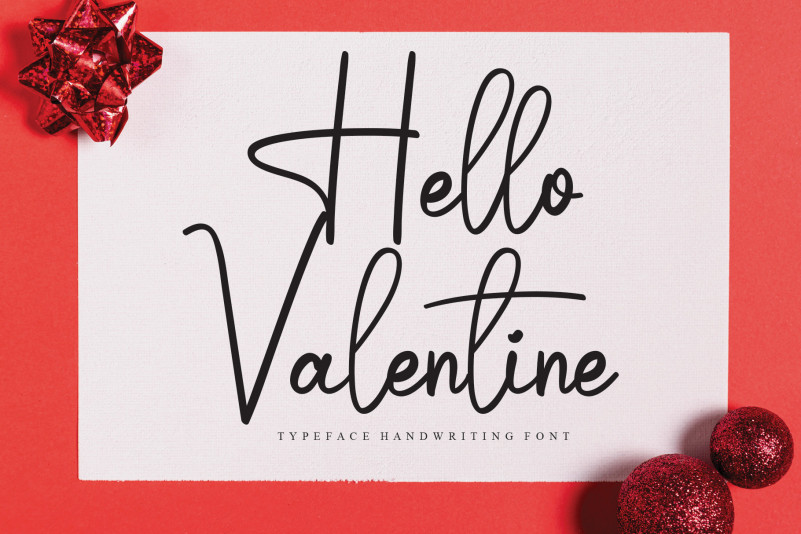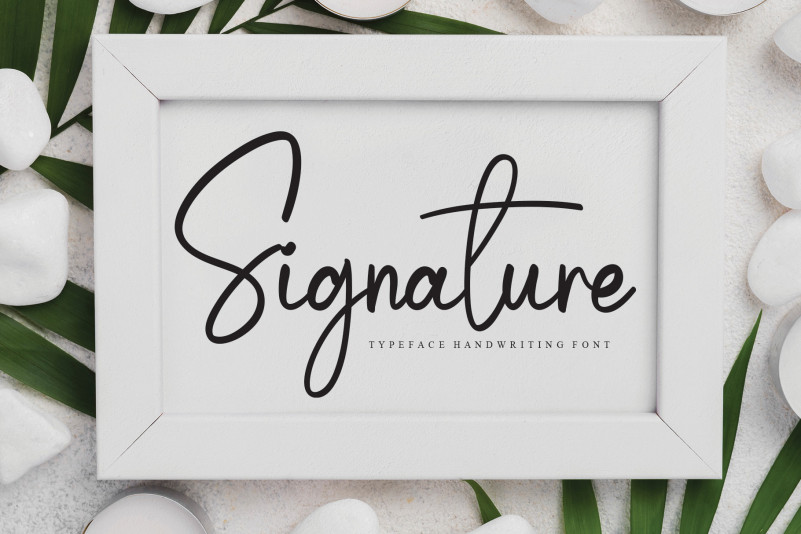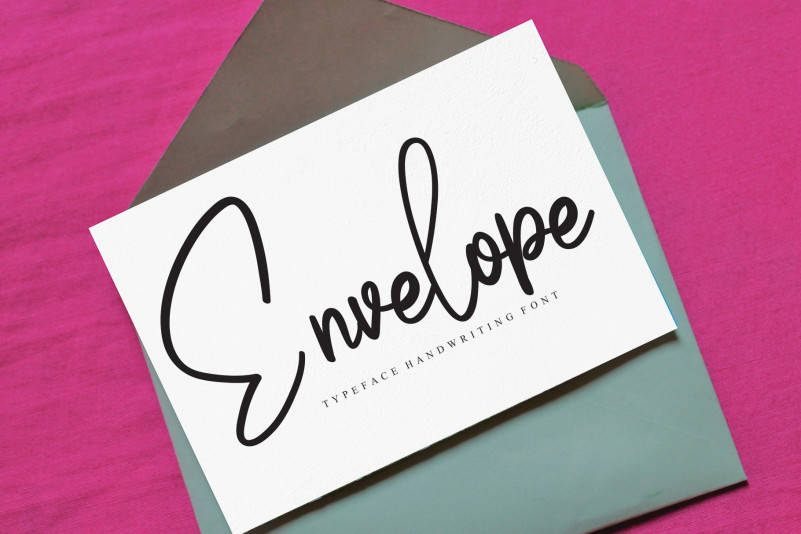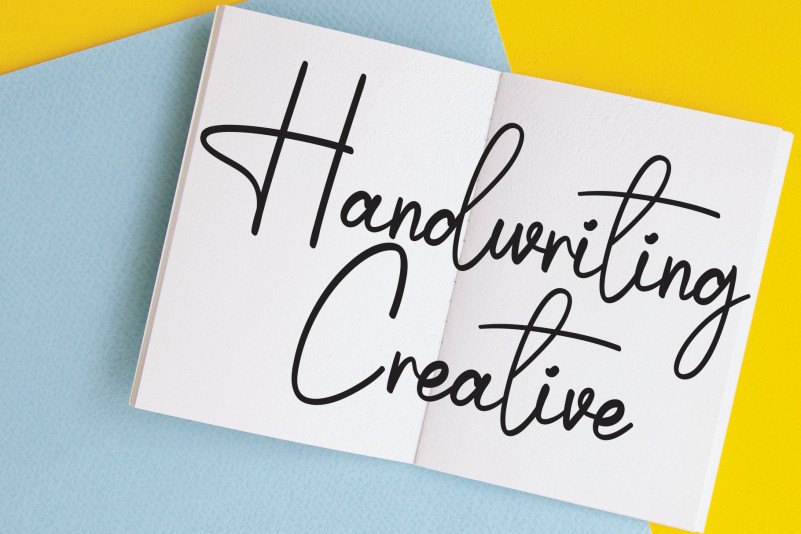
The Relation Script Font
Introducing The Relation Script Font – The latest style letters are perfect for wall displays, wedding invitations, social media post logos, advertisements, product packaging, product designs, labels, photography, watermarks, invitations, stationery,and any project that requires taste handwriting.